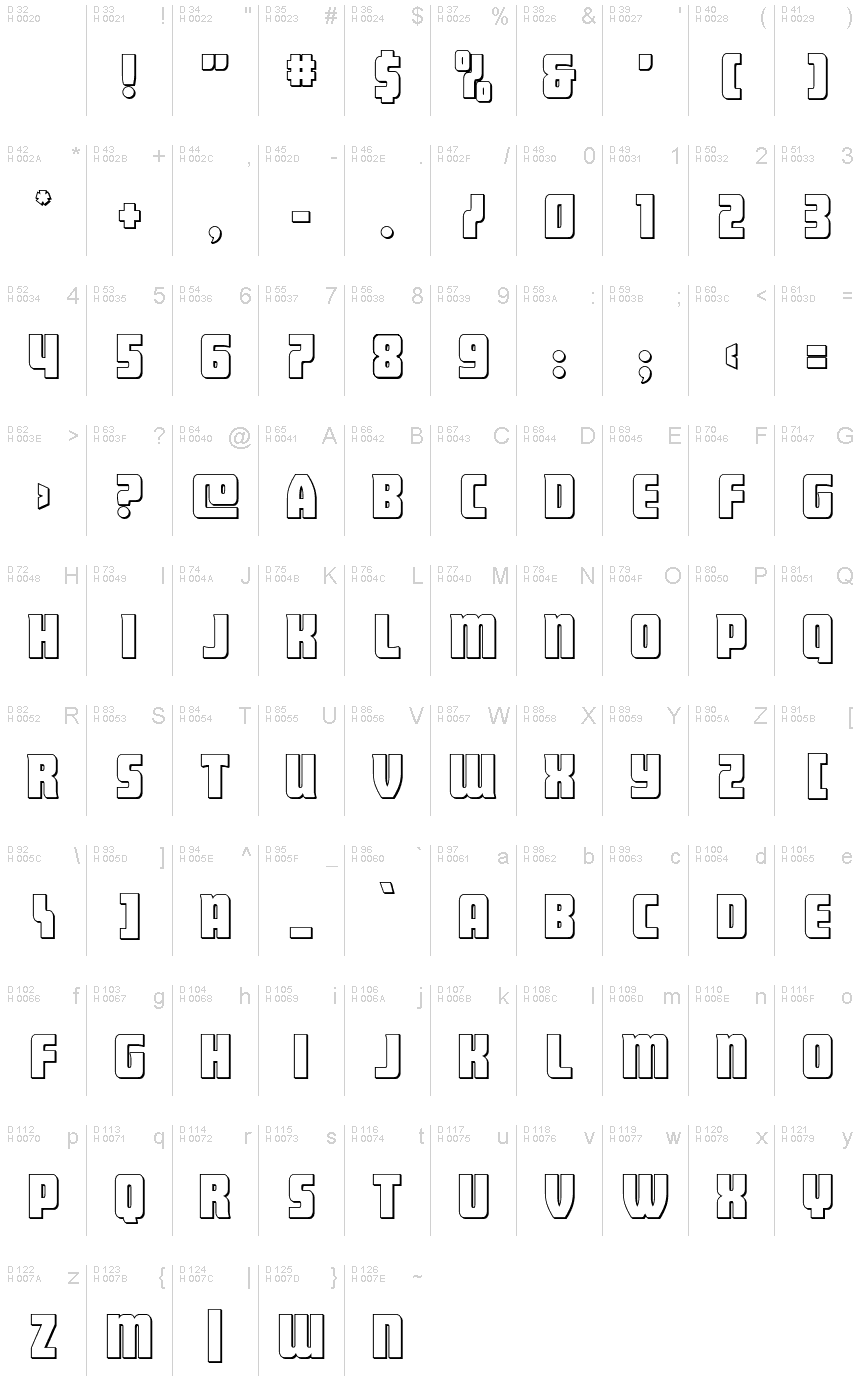
Intrepid Spear Straight 3D
Intrepid Spear Straight 3D, a display font from the Intrepid Spear family, is the brainchild of Iconian Fonts, showcasing a bold and adventurous spirit in its design. This 3D techno font boasts an extra-condensed width that exudes strength and modernity. Its solid, block-like structure gives it a robust and impactful appearance, while the sharp angles and precise lines hint at a futuristic aesthetic.
The unique visual appeal of Intrepid Spear Straight 3D lies in its ability to stand out with its pronounced depth effects that create a striking visual hierarchy. The impression of three-dimensionality adds a layer of sophistication to any project it graces. From posters to logos, this font's assertive presence makes it ideal for grabbing attention.
Available in two sub-families—Regular and Lower Case—Intrepid Spear Straight 3D offers versatility for designers looking to balance uniformity with creative flair. Whether used in headlines or short text bursts, this typeface is not just about making words visible; it's about sculpting them into an unforgettable visual experience.
The unique visual appeal of Intrepid Spear Straight 3D lies in its ability to stand out with its pronounced depth effects that create a striking visual hierarchy. The impression of three-dimensionality adds a layer of sophistication to any project it graces. From posters to logos, this font's assertive presence makes it ideal for grabbing attention.
Available in two sub-families—Regular and Lower Case—Intrepid Spear Straight 3D offers versatility for designers looking to balance uniformity with creative flair. Whether used in headlines or short text bursts, this typeface is not just about making words visible; it's about sculpting them into an unforgettable visual experience.